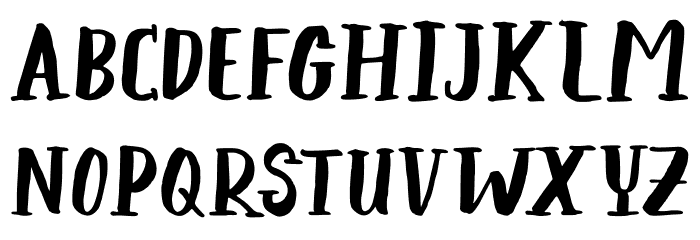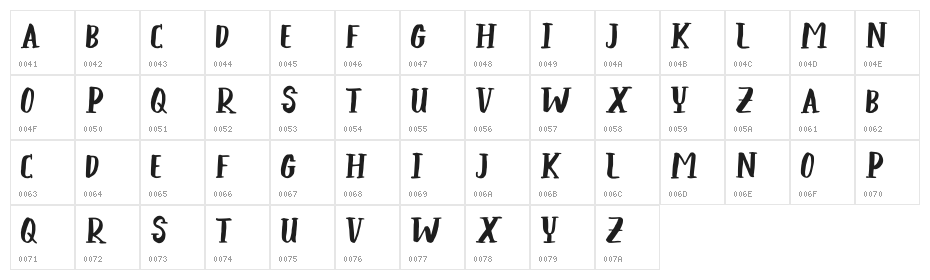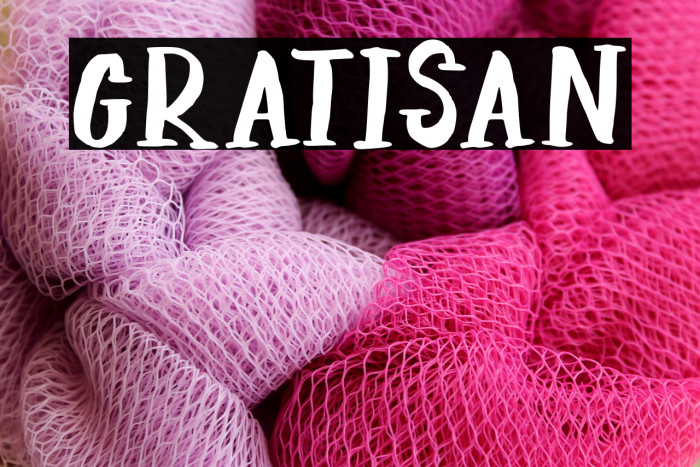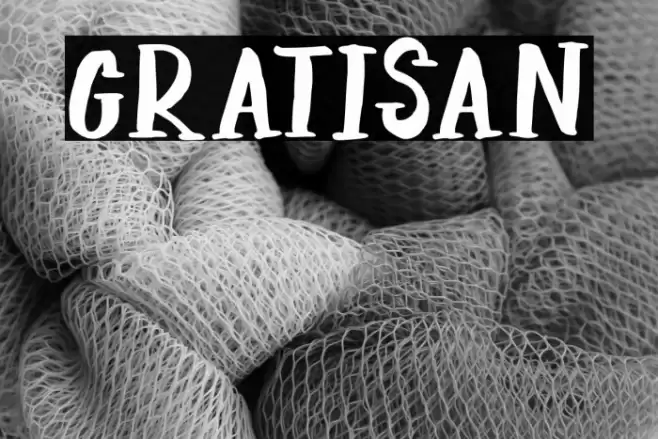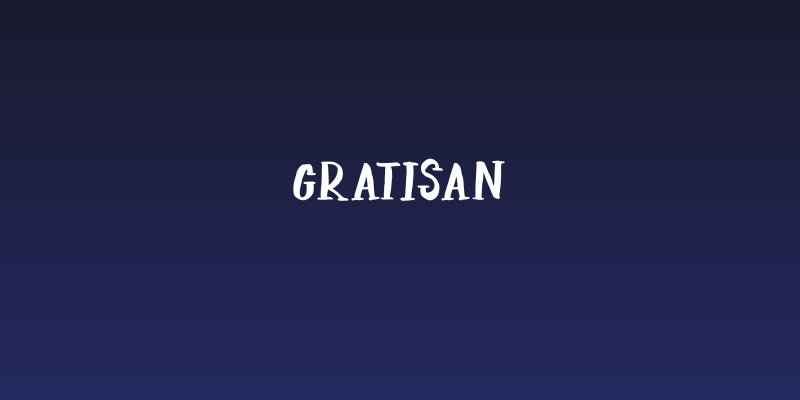
GRATISAN Font
GRATISAN Description
This font features a bold and dynamic style with a hand-drawn appearance. The characters exhibit a playful and energetic vibe, with slightly irregular strokes that add to its charm. The uppercase letters are prominent and have a unique flair, making them stand out. The overall design is reminiscent of brush lettering, giving it a casual yet artistic feel. The strokes are thick and consistent, providing a strong visual impact. This font is suitable for projects that require a bold statement and a touch of creativity.
| Overall Style | Artistic, Playful |
| Proposed Projects | Ideal for posters, branding, packaging, and creative projects that need a bold and artistic touch. |